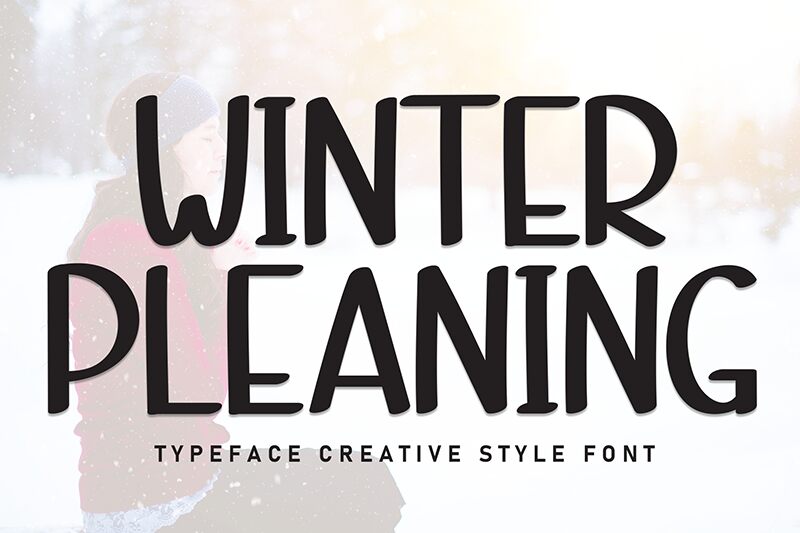
Winter Pleaning
Winter Pleaning font by Andi Moz captures the essence of authentic handwriting with its uneven texture and organic appearance. Rounded edges add to the softness and casual feel that makes this free handwritten font approachable yet still stylish for a large number of uses.
This font can enhance designs for planners, notebooks, educational material, announcements, menu cards, personalized branding projects or internal company presentations. Each letter is simple but carries the natural feel found in real human handwriting!